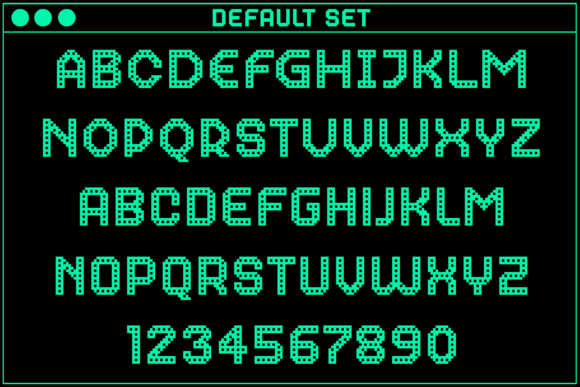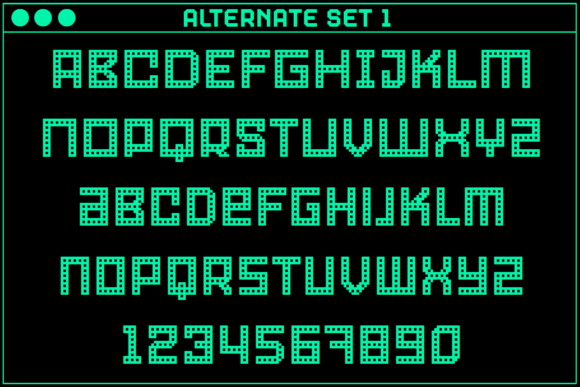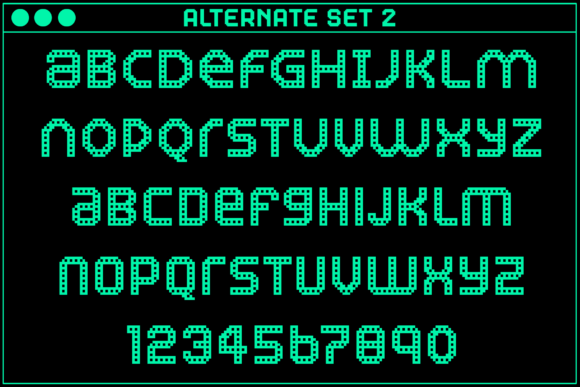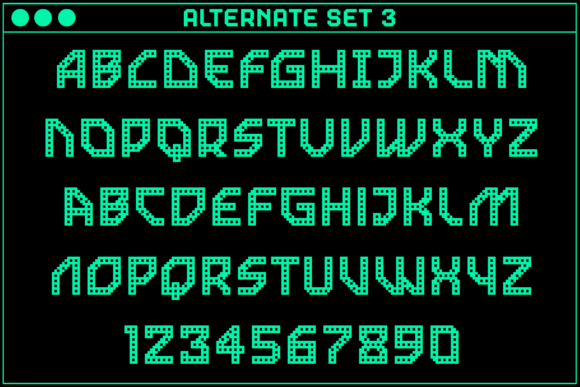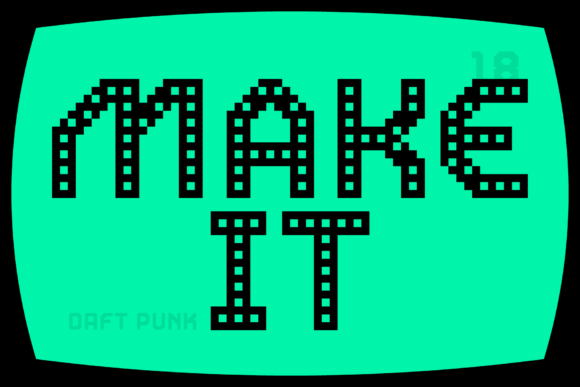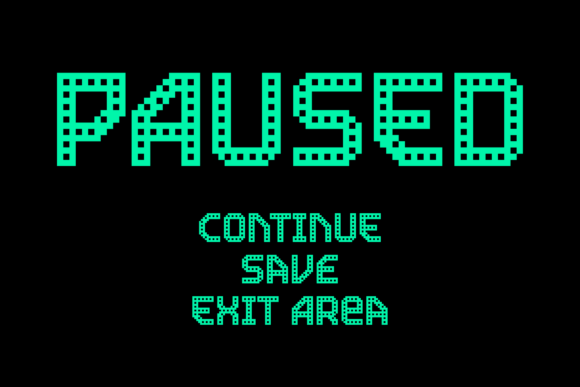
Introduction to Gamer Pierced Font
Gamer Pierced is a cool, uniquely shaped, pixelated display font.
Add a distorted and trendy touch to all of your designs with this unusual pixel font Gamer Pierced is PUA encoded which means you can access all glyphs and swashes with ease.
Key Features of Gamer Pierced Font